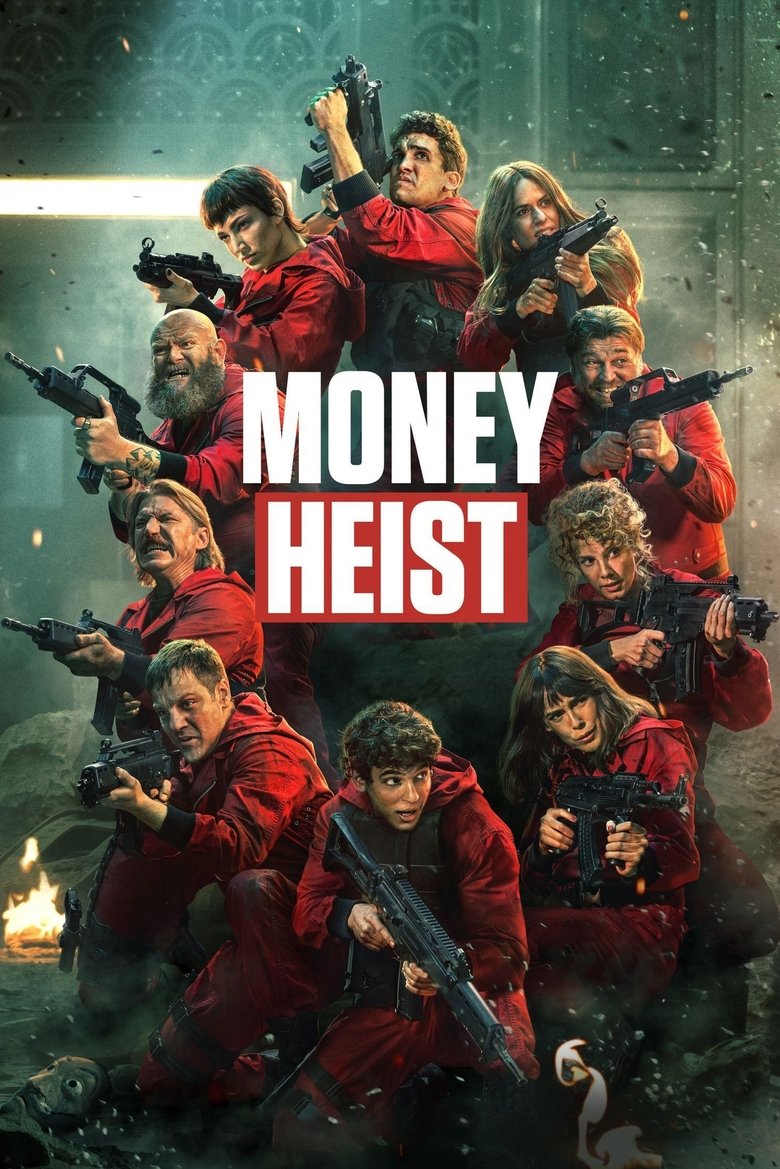
About the Money Heist font
Money Heist (La Casa de Papel) uses a bold condensed sans over red. Oswald recreates that urgent, heist-poster punch with an open licence.
What font is used in the Money Heist logo?+
The original Money Heist logo uses custom lettering. This generator recreates the look with Oswald — a free, open-license font you can style and download.